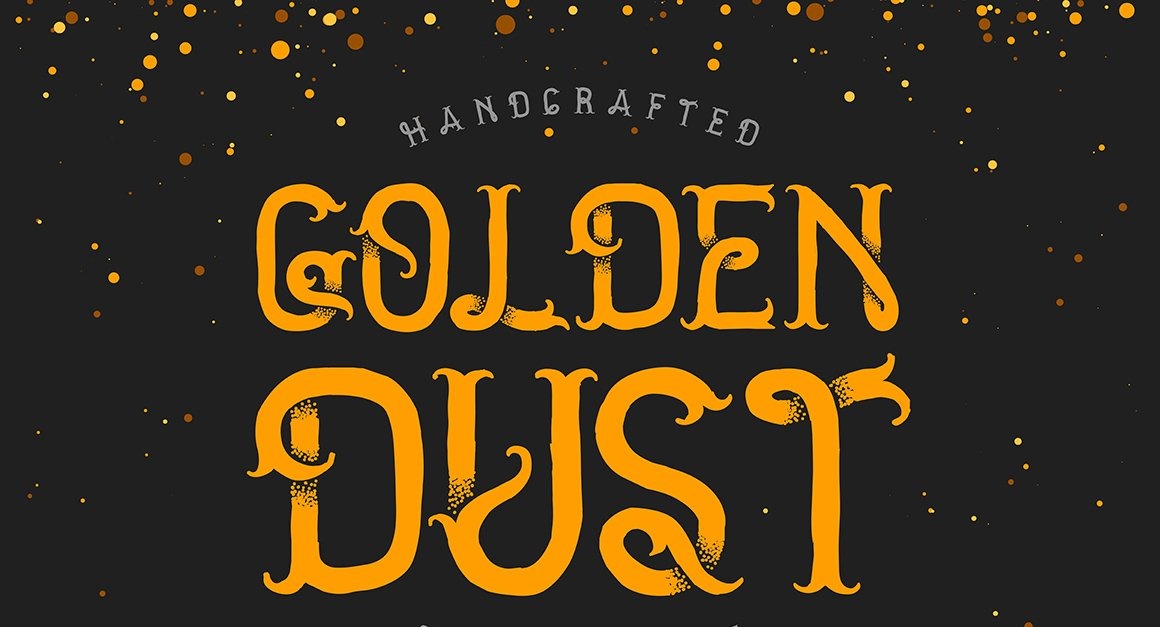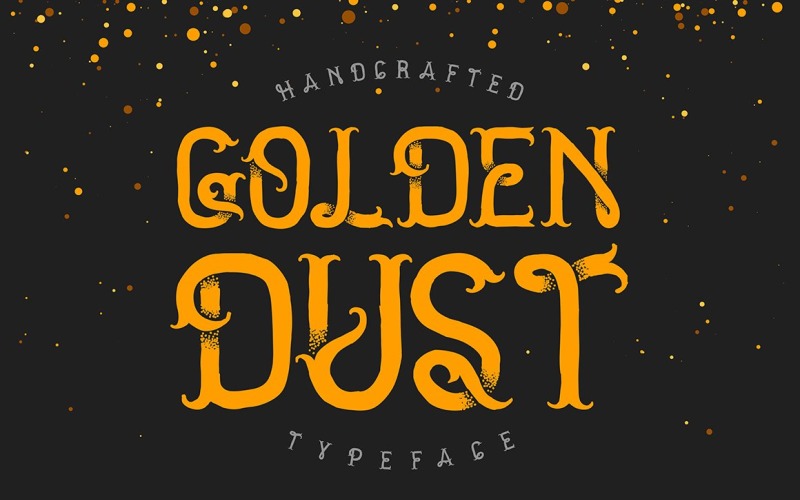
Golden Dust Typeface Font
Hello! Introducing a "Golden dust" font. Fully handcrafted with vintage points effect. Hundreds of dots brings a lot of fun :) I hope you'll enjoy it!